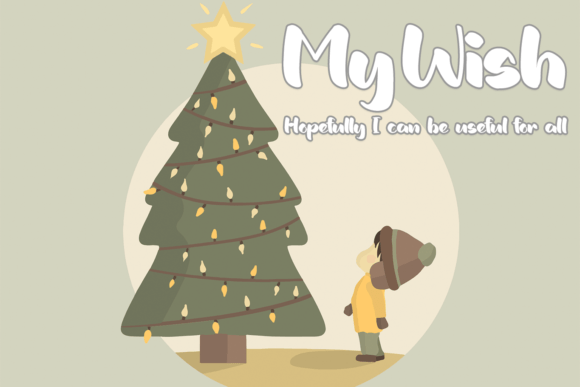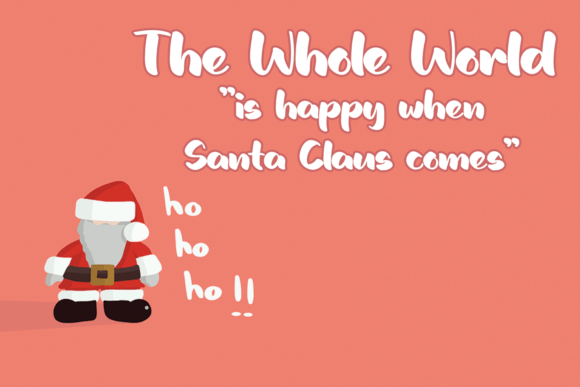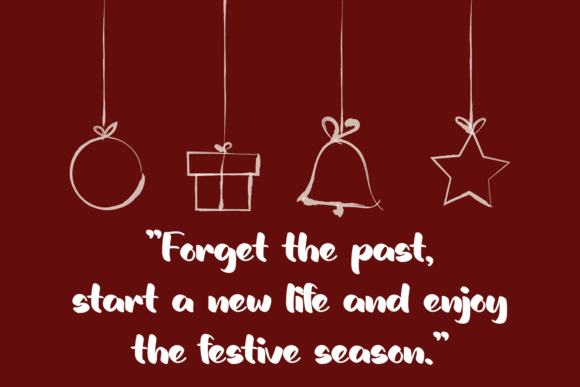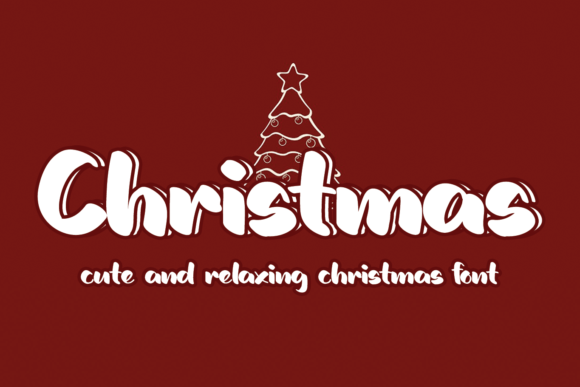
Introducing Christmas Font: A Playful and Friendly Handwritten Delight
Are you looking for a font that embodies the spirit of the holiday season? Look no further than Christmas Font, a playful and friendly handwritten font that’s perfect for adding a touch of festive fun to your creative projects. With its unique and charming design, Christmas Font can easily be matched to an incredibly large set of projects, making it a versatile and exciting addition to your font collection.
As a designer or crafter, you’re always on the lookout for fonts that can help your projects stand out from the crowd. Christmas Font is here to help. Its playful and friendly design makes it perfect for a wide range of projects, from holiday cards and invitations to festive posters and social media graphics. Whether you’re creating something for personal use or for a client, Christmas Font is sure to bring a smile to everyone’s face.
What Makes Christmas Font So Special?
So, what sets Christmas Font apart from other fonts? Here are just a few of its standout features:
- Playful and friendly design: Christmas Font has a unique and charming design that’s perfect for capturing the spirit of the holiday season.
- Handwritten feel: With its handwritten feel, Christmas Font adds a personal touch to any project.
- Versatile: Christmas Font can be used for a wide range of projects, from holiday cards and invitations to festive posters and social media graphics.
- Easy to read: Despite its playful design, Christmas Font is easy to read, making it perfect for use in body text as well as headlines.
How to Use Christmas Font in Your Projects
Now that you know a little bit about Christmas Font, let’s talk about how to use it in your projects. Here are a few ideas to get you started:
- Holiday cards and invitations: Use Christmas Font to create festive and fun holiday cards and invitations that are sure to impress.
- Festive posters and graphics: Add a touch of holiday cheer to your posters and graphics with Christmas Font.
- Social media graphics: Use Christmas Font to create festive and engaging social media graphics that are sure to stand out.
- Crafting projects: Christmas Font is perfect for use in crafting projects, such as scrapbooking and DIY gift tags.
Tips for Getting the Most Out of Christmas Font
Here are a few tips for getting the most out of Christmas Font:
- Experiment with different colors: Christmas Font looks great in a variety of colors, so don’t be afraid to experiment and find the perfect hue for your project.
- Pair it with other fonts: Christmas Font pairs well with a variety of other fonts, so try combining it with other fonts to create a unique and interesting look.
- Use it in combination with images: Christmas Font looks great in combination with images, so try using it to add a touch of festive fun to your photos and illustrations.
Christmas Font is a playful and friendly handwritten font that’s perfect for adding a touch of festive fun to your creative projects. With its unique and charming design, Christmas Font can easily be matched to an incredibly large set of projects, making it a versatile and exciting addition to your font collection. Whether you’re a designer or crafter, Christmas Font is sure to bring a smile to everyone’s face. So why wait? Download Christmas Font today and start adding a touch of holiday cheer to your projects!